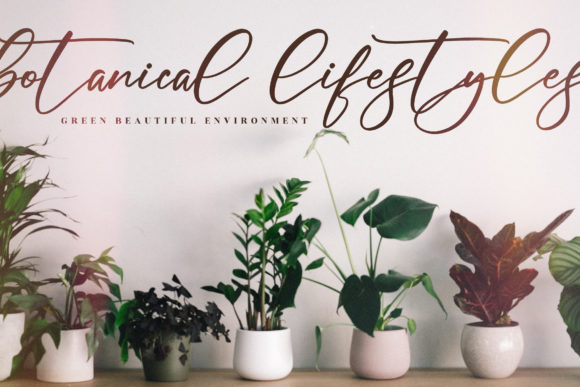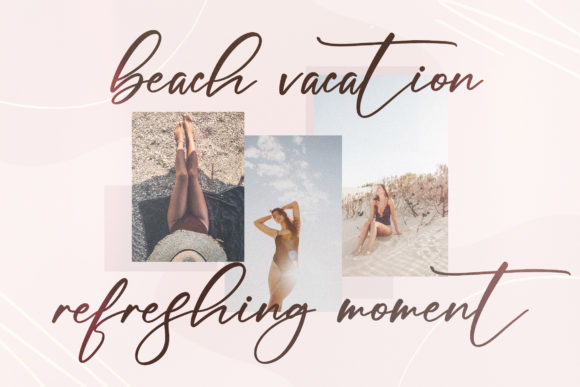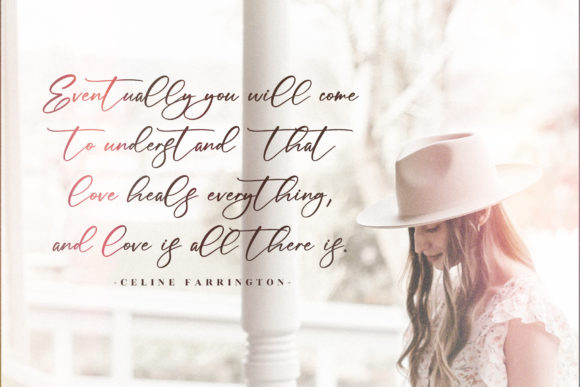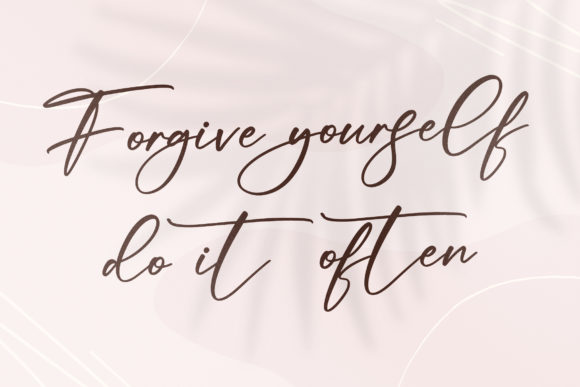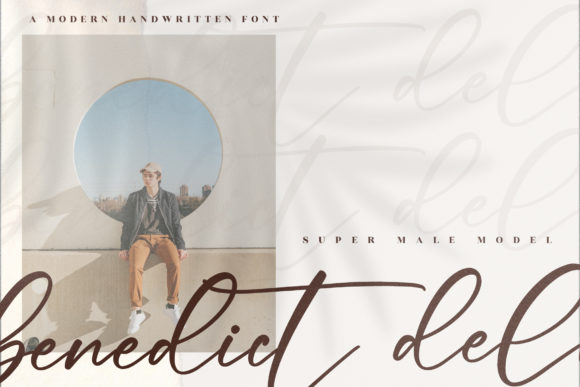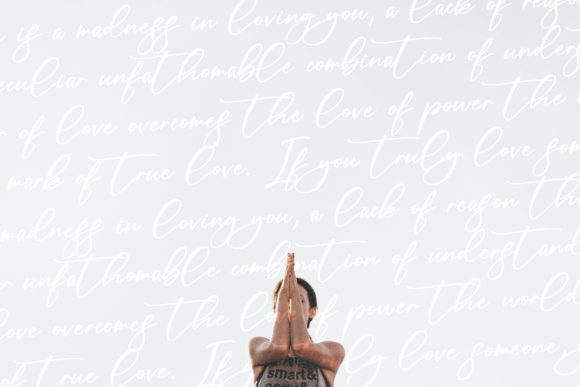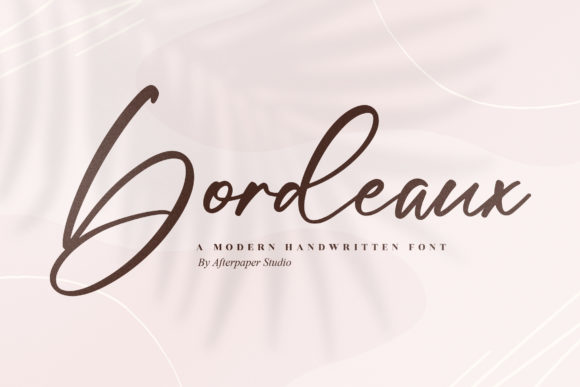
Bordeaux Font: Elevate Your Design with a Unique Handwritten Style
Bordeaux is a beautiful and light handwritten font with a unique feel and a stunning impact. It will add a neat spark to any design project that you wish to create! If you’re a designer or crafter looking for a font that can elevate your work and make it stand out, Bordeaux is definitely worth considering.
What Makes Bordeaux Font Special?
Bordeaux font is a carefully crafted handwritten font that exudes elegance and sophistication. Its light and airy feel makes it perfect for designs that require a touch of refinement and poise. The font’s unique style is characterized by its flowing lines, subtle curves, and delicate connections, giving it a distinctive and eye-catching appearance.
Key Features of Bordeaux Font
- Unique Handwritten Style: Bordeaux font boasts a one-of-a-kind handwritten style that is both elegant and playful.
- Light and Airy Feel: The font’s light weight and airy texture make it perfect for designs that require a touch of sophistication.
- Flowing Lines and Subtle Curves: Bordeaux font features flowing lines and subtle curves that give it a distinctive and eye-catching appearance.
- Delicate Connections: The font’s delicate connections add a touch of refinement and poise to any design.
How to Use Bordeaux Font in Your Design Projects
Bordeaux font is versatile and can be used in a variety of design projects, including:
- Branding and Logo Design: Use Bordeaux font to create a unique and memorable logo that reflects your brand’s personality.
- Stationery and Invitations: Add a touch of elegance to your stationery and invitations with Bordeaux font.
- Web Design: Use Bordeaux font to create a beautiful and user-friendly website that showcases your brand’s style.
- Social Media Graphics: Elevate your social media graphics with Bordeaux font and make your content stand out.
Tips for Getting the Most Out of Bordeaux Font
To get the most out of Bordeaux font, here are some tips to keep in mind:
- Use it with a contrasting font: Pair Bordeaux font with a contrasting font to create visual interest and hierarchy.
- Experiment with different colors: Bordeaux font looks great in a variety of colors, so don’t be afraid to experiment and find the perfect hue for your design.
- Pay attention to spacing: Make sure to leave enough space between lines and words to ensure that your design looks clean and uncluttered.
Bordeaux font is a beautiful and unique handwritten font that can elevate any design project. Its light and airy feel, flowing lines, and delicate connections make it perfect for designs that require a touch of elegance and sophistication. Whether you’re a designer or crafter, Bordeaux font is definitely worth considering for your next project.
So why not give Bordeaux font a try and see how it can transform your designs? With its stunning impact and unique feel, it’s sure to add a neat spark to any project you wish to create!